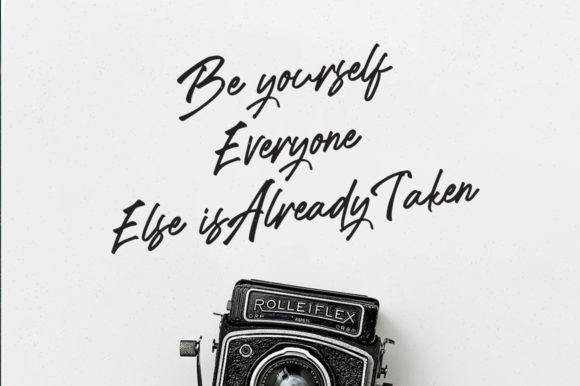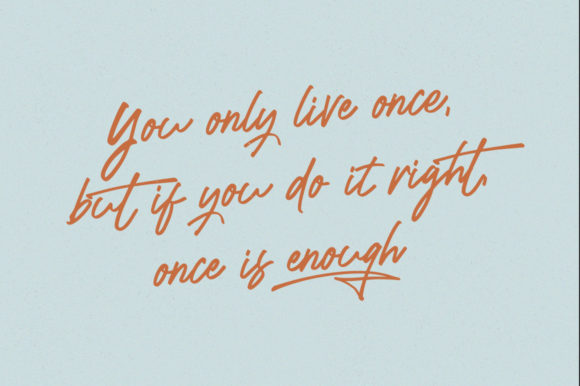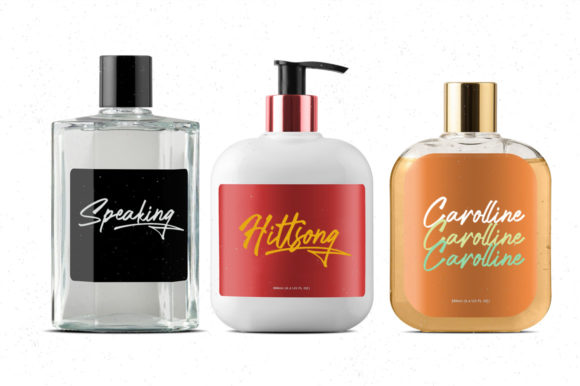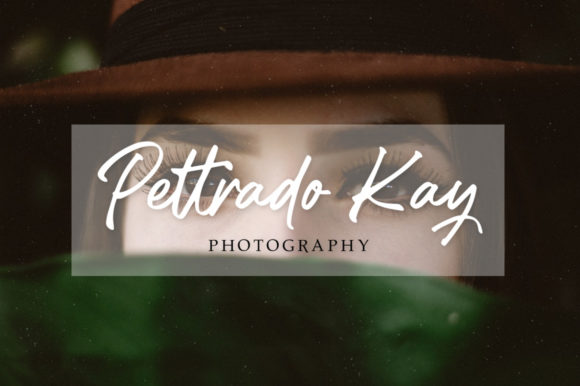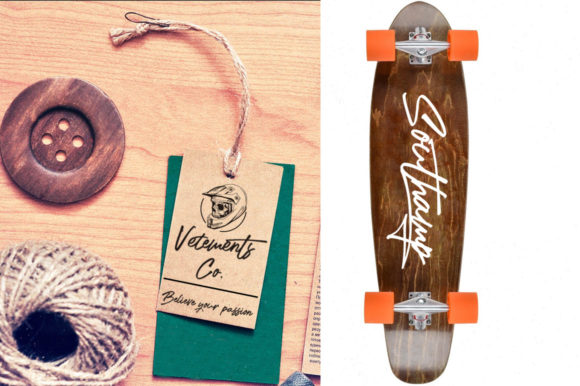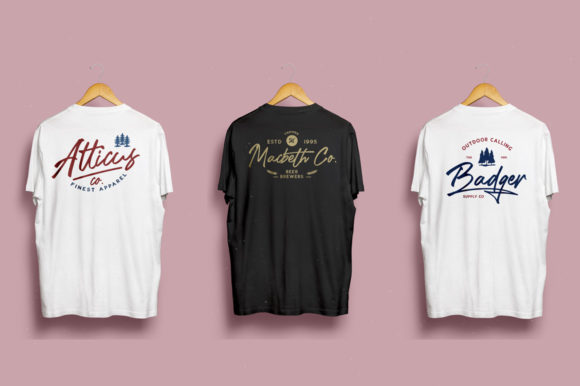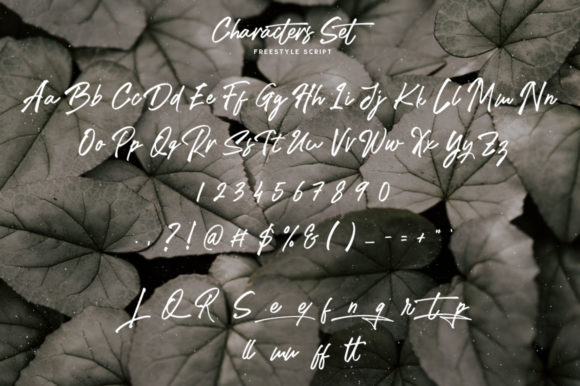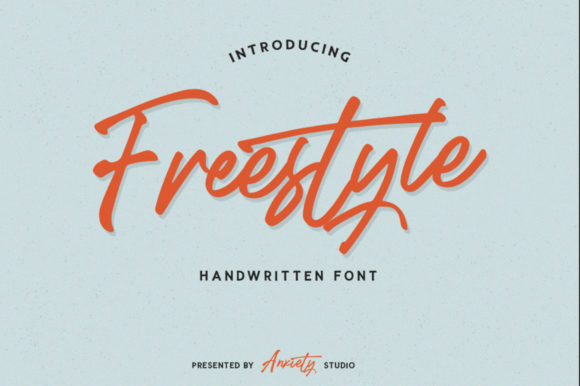
HomeScript FontsFreestyle Font Script Fonts Freestyle Font FacebookXPinterestWhatsApp Freestyle Font Poster 2 Freestyle Font Poster 3 Freestyle Font Poster 4 Freestyle Font Poster 5 Freestyle Font Poster 6 Freestyle Font Poster 7 Freestyle Font Poster 8 Freestyle Font Poster 9 Freestyle Font Poster 10 Freestyle Font Poster 11 Freestyle Font Poster 12 Freestyle Font Poster 13 Freestyle Font Poster 14 Freestyle Font Poster 15 Freestyle Font Poster 16 About Freestyle Font Freestyle is a bold, clean and rough script that will add an urban twist to any creative idea. DOWNLOAD NOW People also explored Goresans Font Rotun Font Nattalia Font Dakota Magic Font Sunshine Wishes Font Love Plants Font Kaneda Gothic Ramanda Victoria Font Diamond Font 275 0 TagsFreestyle Font Previous articleKarisma FontNext articleVerrell Font LEAVE A REPLY Cancel reply Comment: Please enter your comment! Name:* Please enter your name here Email:* You have entered an incorrect email address! Please enter your email address here Website: Save my name, email, and website in this browser for the next time I comment. Personal Use Free Luxima Personal Use Free Read more about this font Mandara Personal Use Free Read more about this font Broodfath Personal Use Free Read more about this font Batik Classic Personal Use Free Read more about this font BLOG The 10 Best Handwriting Fonts to Add Personality to Your Designs 10 of the Best Handwriting Fonts for Adding Personality to Your Designs There will undoubtedly be no other better choice than handwriting fonts to give... 5 Fonts That Will Dominate Design Trends in 2026 Best Fonts for YouTube Videos: Make Your Thumbnails Stand Out How to Cut Any Font on Cricut: Convert a Font to SVG (Free)